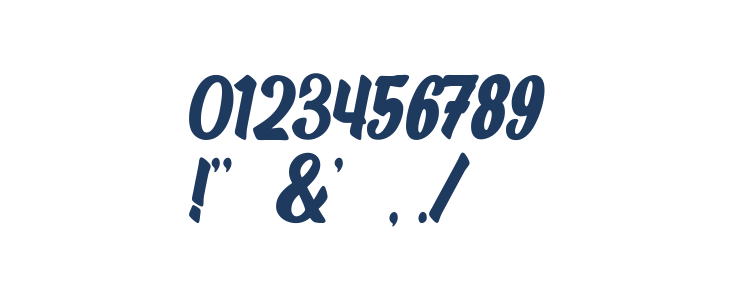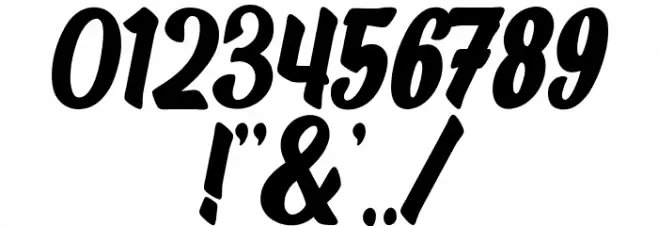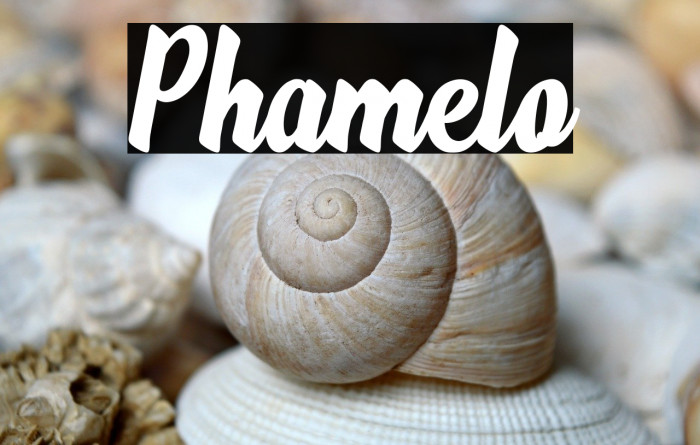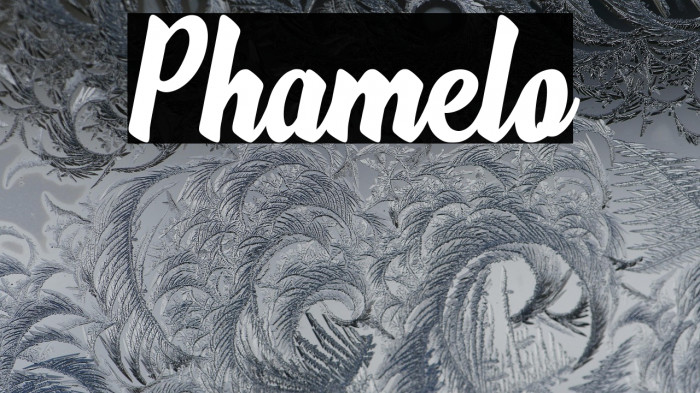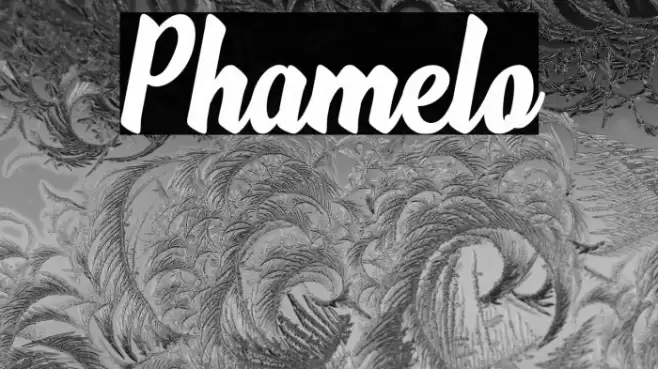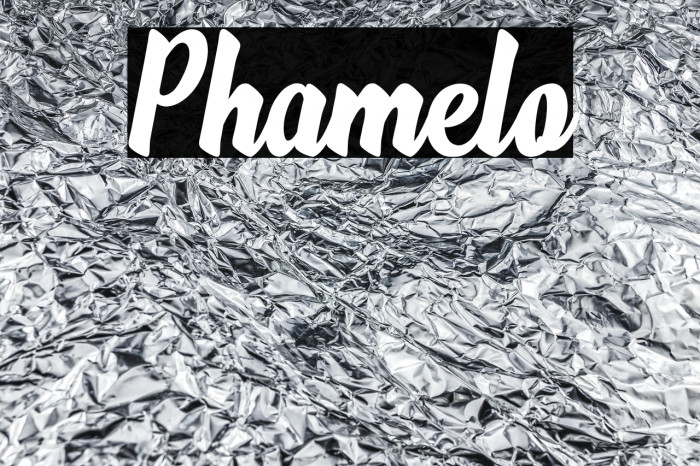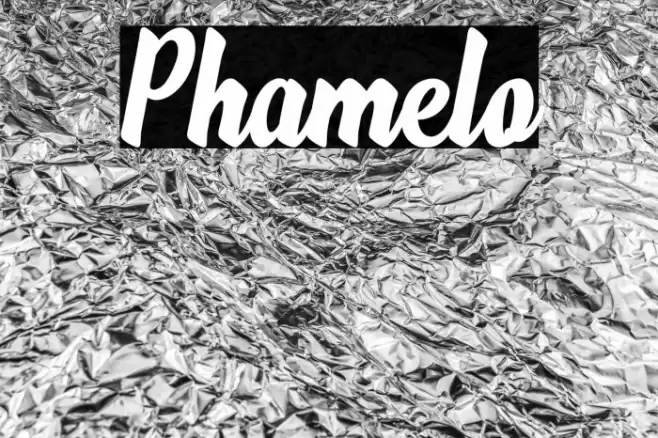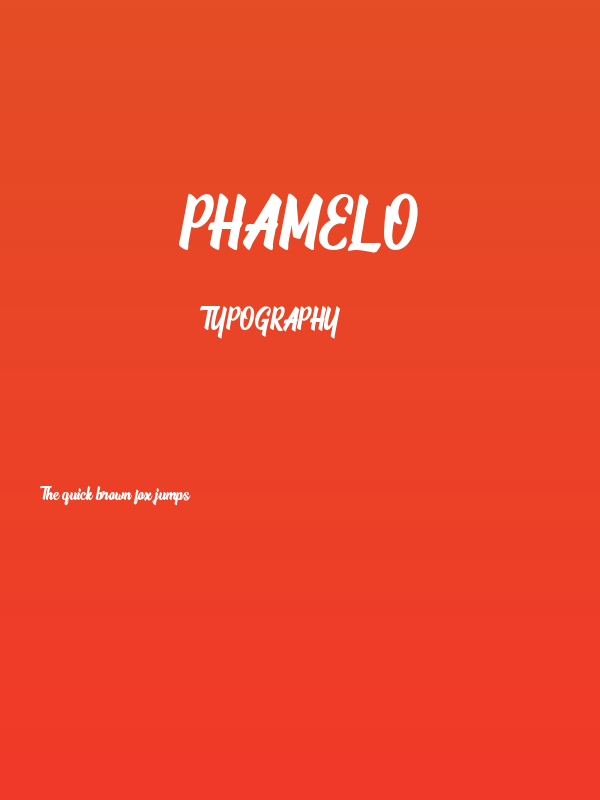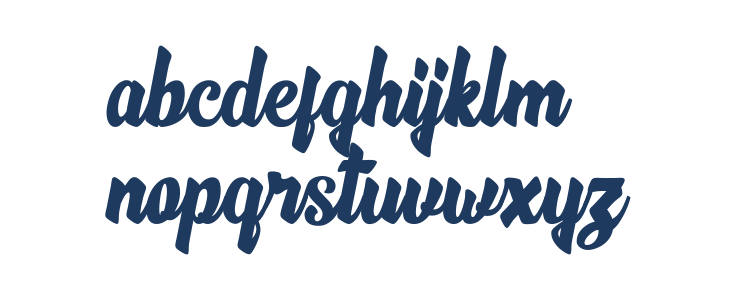
Phamelo Font
Phamelo Description
This font features a bold and dynamic script style with a strong presence. The letters are connected, giving it a fluid and cohesive appearance. The strokes are thick, providing a sense of strength and confidence. The uppercase letters are slightly more upright, while the lowercase letters maintain a consistent slant, enhancing the cursive feel. Numbers and special characters are designed to match the overall energetic and bold aesthetic. This font is ideal for making a statement, with its eye-catching and robust design.
| Proposed Projects | Ideal for branding, logos, headlines, and posters where a strong, impactful presence is desired. |